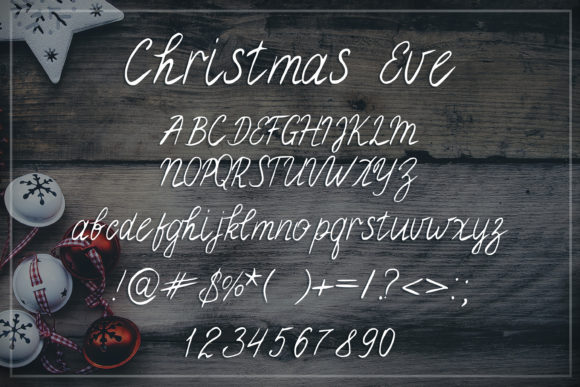
Introducing Christmas Eve Font: A Delicate and Whimsical Handwritten Font
Are you looking for a font that captures the magic and wonder of the holiday season? Look no further than Christmas Eve Font, a delicate and cursive handwritten font that’s perfect for adding a touch of joy and whimsy to your designs. In this article, we’ll take a closer look at this beautiful font and explore its many uses for designers and crafters.
What is Christmas Eve Font?
Christmas Eve Font is a sweet and elegant handwritten font that’s designed to evoke the feeling of a winter wonderland. Its delicate and cursive script is perfect for creating beautiful and eye-catching designs that are sure to impress. Whether you’re working on a holiday project, a wedding invitation, or simply want to add a touch of whimsy to your social media graphics, Christmas Eve Font is the perfect choice.
Key Features of Christmas Eve Font
- Delicate and cursive script: Christmas Eve Font features a beautiful, flowing script that’s perfect for creating elegant and sophisticated designs.
- Handwritten charm: This font has a distinctly handwritten feel that’s perfect for adding a touch of personality and whimsy to your designs.
- Versatile: Christmas Eve Font can be used for a wide range of design projects, from holiday cards and invitations to social media graphics and more.
Uses for Christmas Eve Font
Christmas Eve Font is a versatile font that can be used for a wide range of design projects. Here are just a few ideas to get you started:
- Holiday cards and invitations: This font is perfect for creating beautiful and elegant holiday cards and invitations that are sure to impress.
- Social media graphics: Add a touch of whimsy and personality to your social media graphics with Christmas Eve Font.
- Wedding invitations and stationery: This font is perfect for creating beautiful and elegant wedding invitations and stationery.
- Crafting projects: Christmas Eve Font is perfect for crafters who love to create handmade cards, gift tags, and other paper crafting projects.
Tips for Using Christmas Eve Font
Here are a few tips for getting the most out of Christmas Eve Font:
- Use it with contrasting colors: This font looks beautiful when paired with contrasting colors that help it stand out.
- Experiment with different sizes: Christmas Eve Font can be used at a variety of sizes, from small and delicate to large and bold.
- Pair it with other fonts: This font pairs beautifully with other fonts, such as bold and modern fonts or other script fonts.